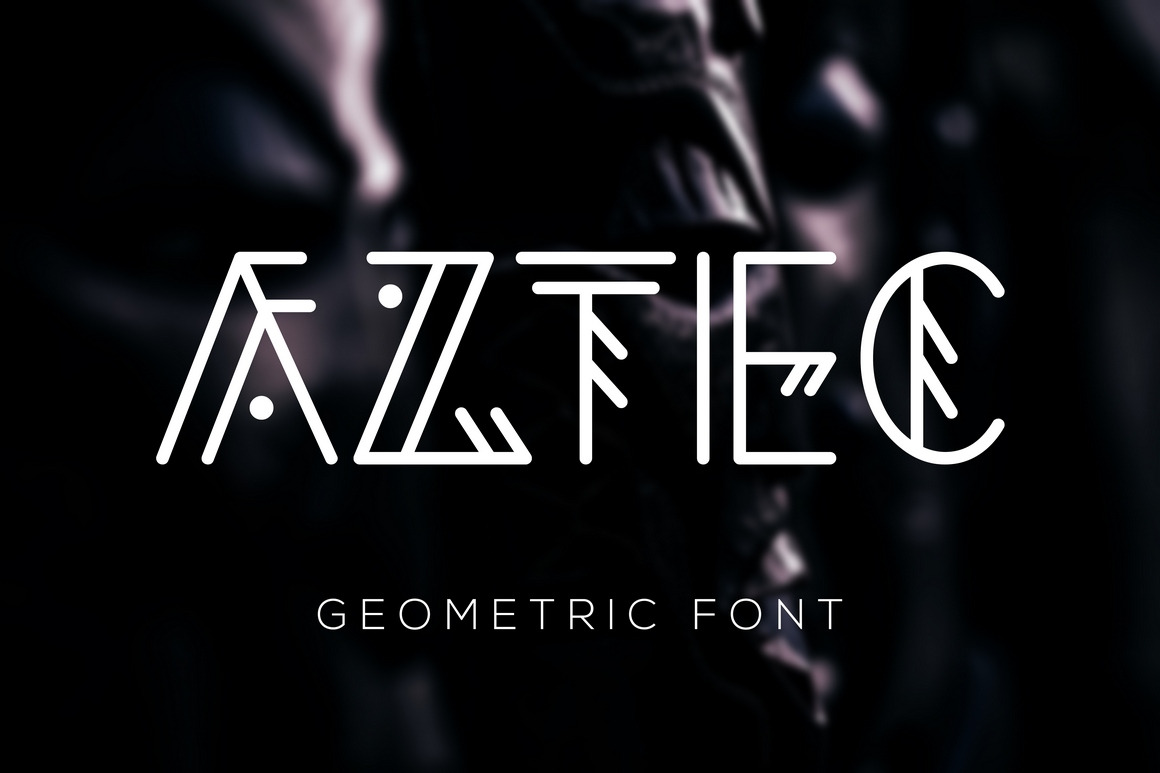
Aztec Geometric Font
Hey everyone! I'm glad to introduce you new decorative Aztec Geometric font! It's perfect for branding, logos, headlines and hipster T-shirt prints.
This font includes CAPS only, numbers and punctuations (please look at preview to see all symbols).